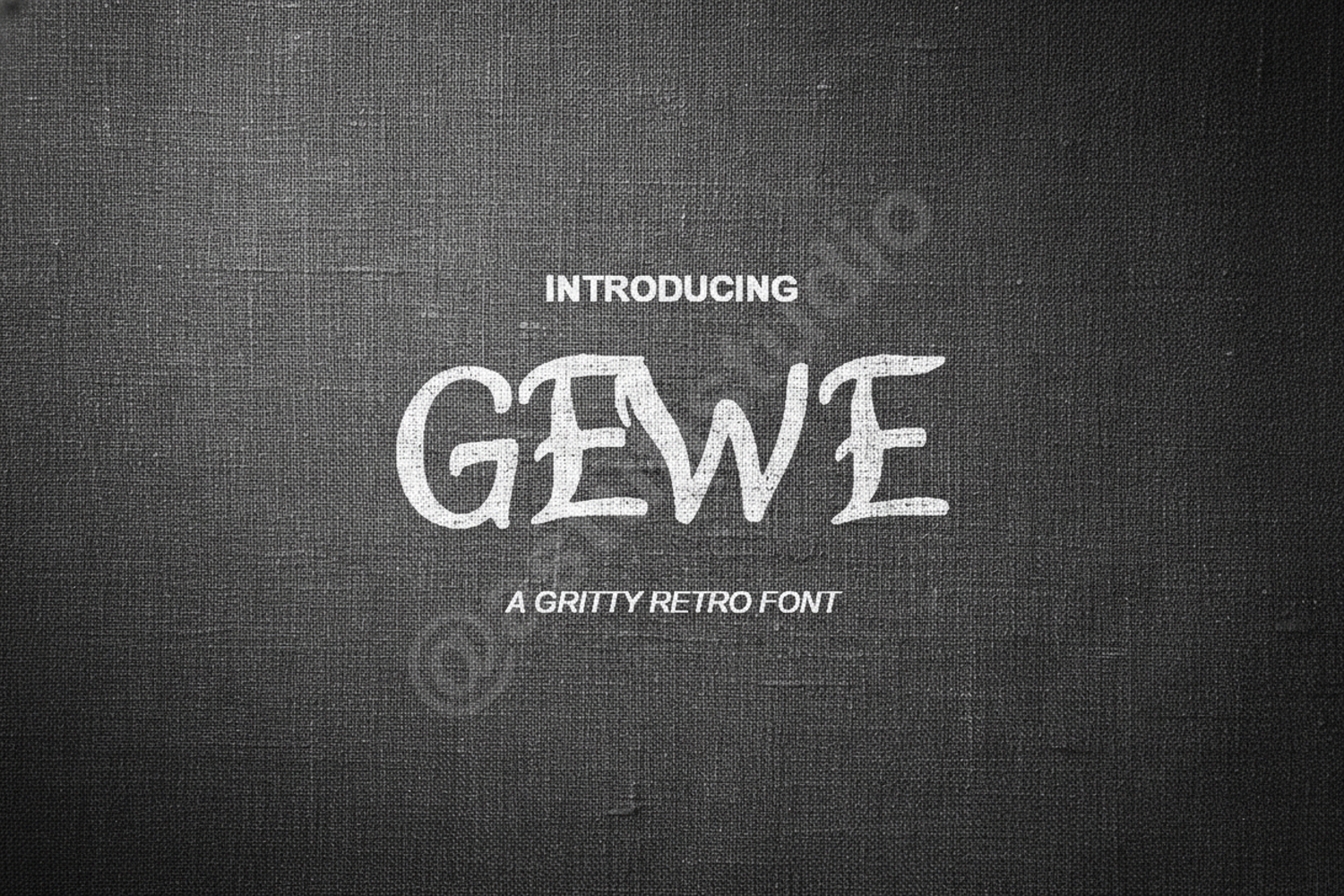
Gewe | A Sophisticated Modern Serif Typeface
Gewe
Elevate your design projects with Gewe, a premium serif font that perfectly balances contemporary minimalism with timeless elegance. Crafted with meticulous attention to detail, Gewe offers a clean and professional aesthetic that ensures your message is delivered with style and clarity. Its versatile nature makes it an essential addition to any designer's creative toolkit, providing a high-end feel to both digital and print media.
- Branding and Identity: Create memorable logos and cohesive brand guidelines.
- Editorial Design: Perfect for sophisticated magazine layouts, headers, and body text.
- Wedding Stationery: Add a touch of class to invitations, RSVP cards, and menus.
- Social Media: Design striking quotes and high-end promotional graphics.
- Web Design: Ensure a luxury look for website headers and hero sections.